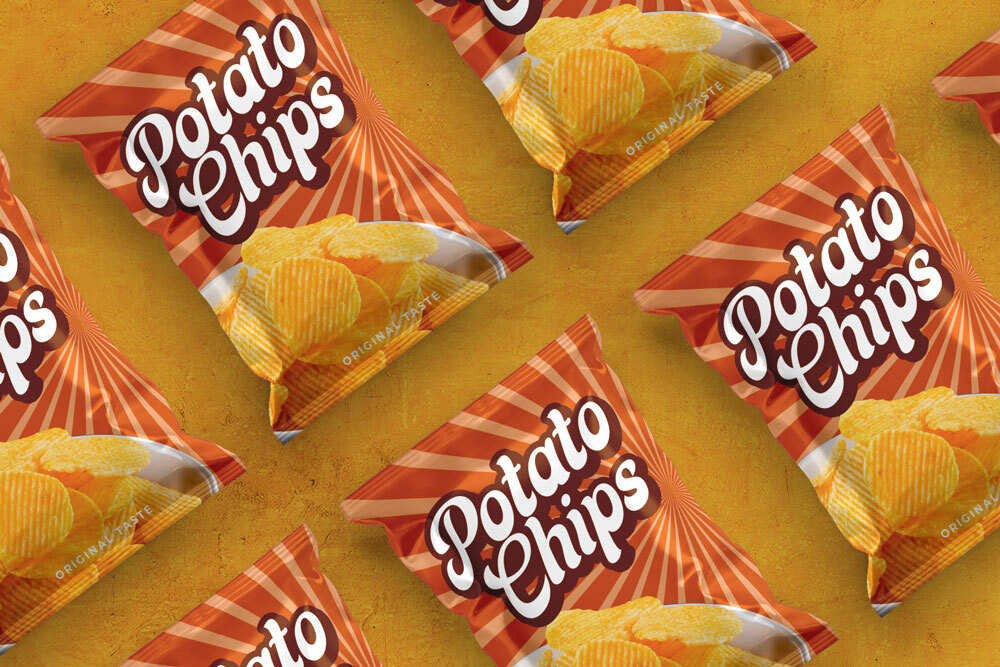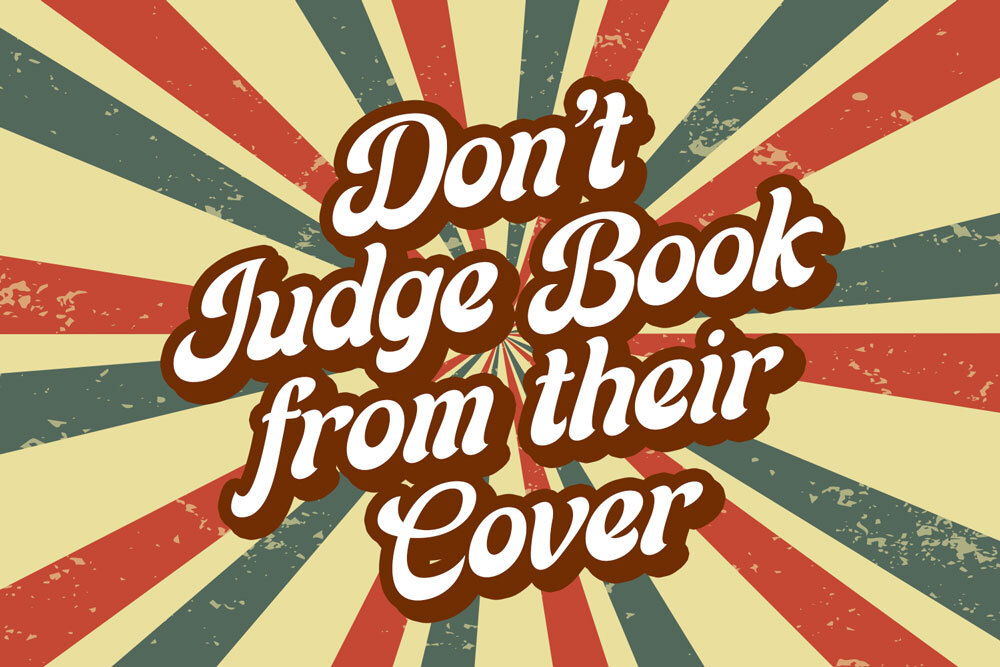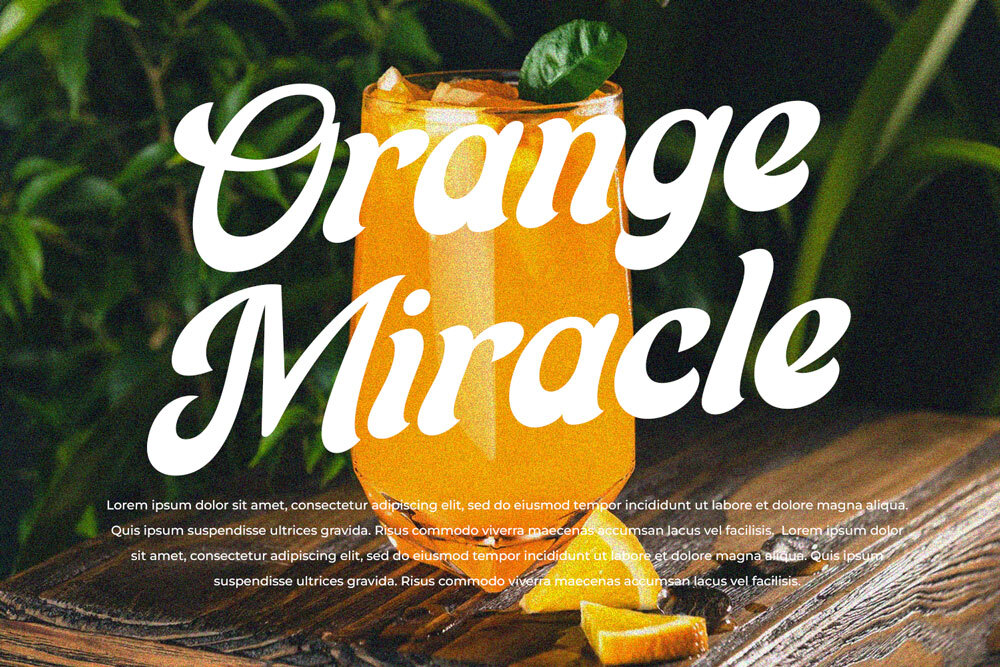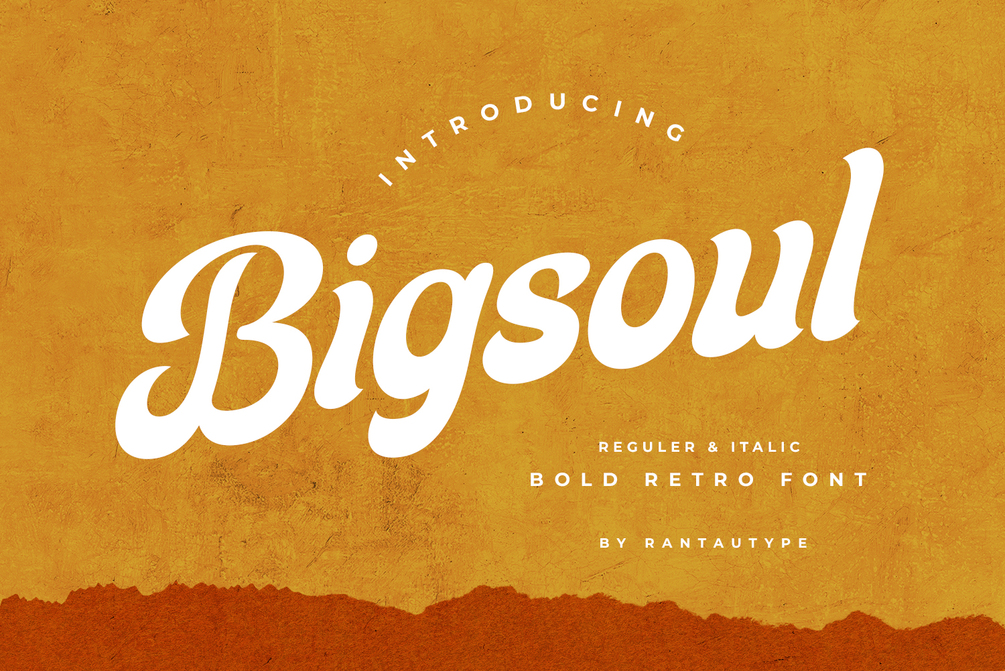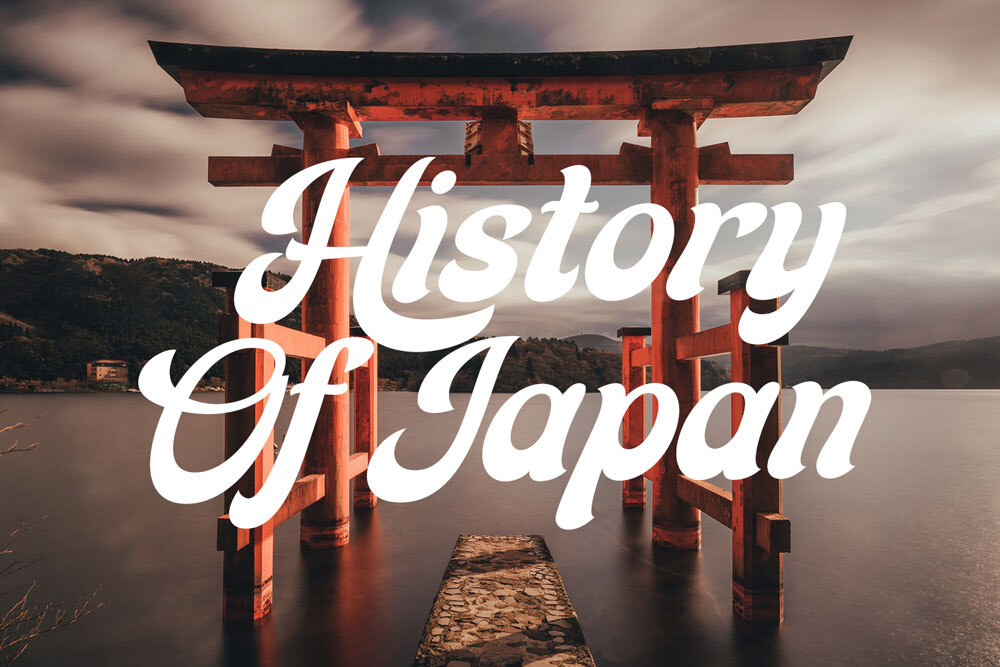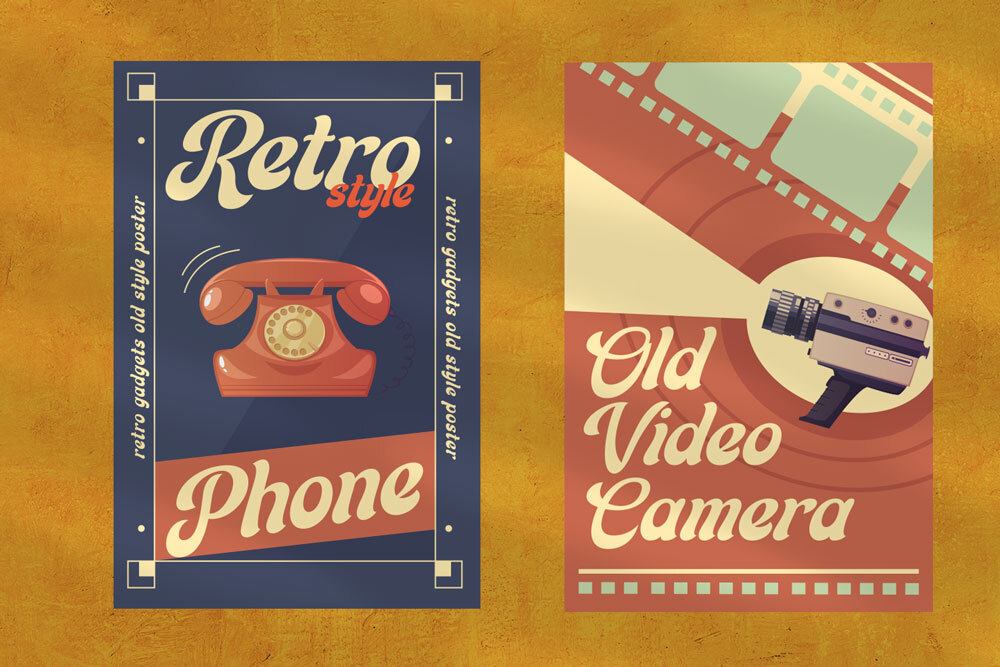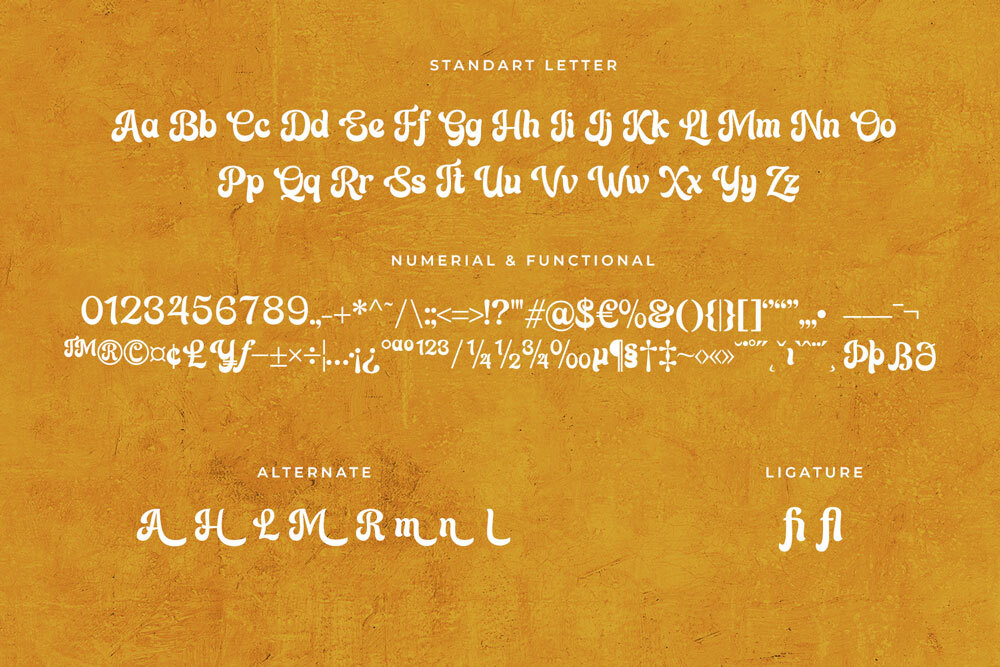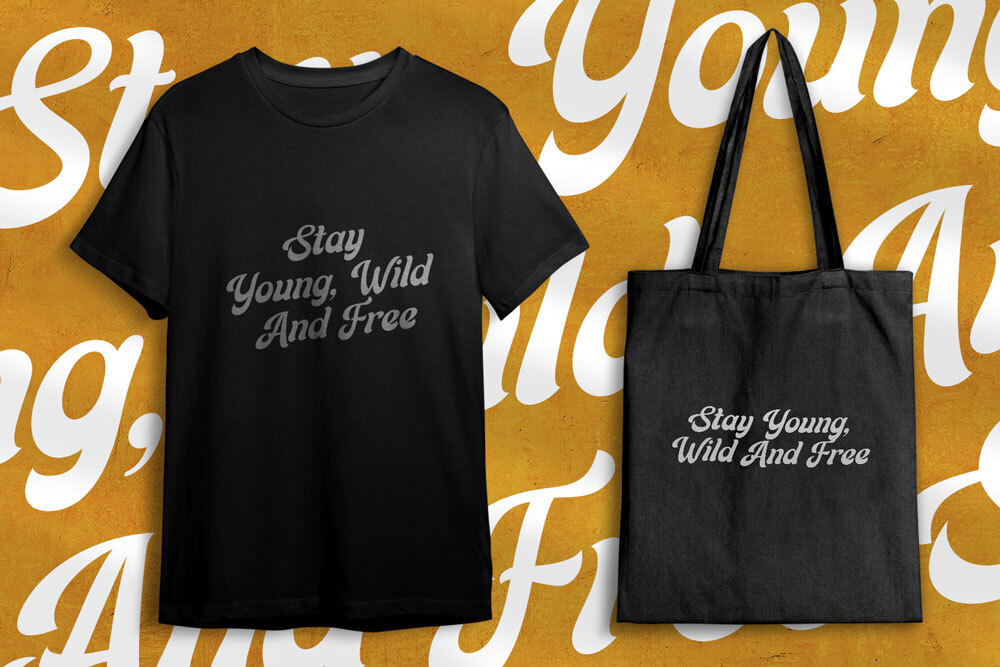
Bigsoul Bold Retro Font
Proudly present bold retro font “Bigsoul”.
A retro bold script which will bring you back to 60s feel. It is great for making logotype, branding, promotional ads, quotes design, packaging, t-shirt design. merchandise, poster, merchandise, social media and much more. Bigsoul is here to make your work or your business to high level!!!
Features
- Standart letter A-Z and a-z
- Numberial
- Functional
- ligature
- Alternate